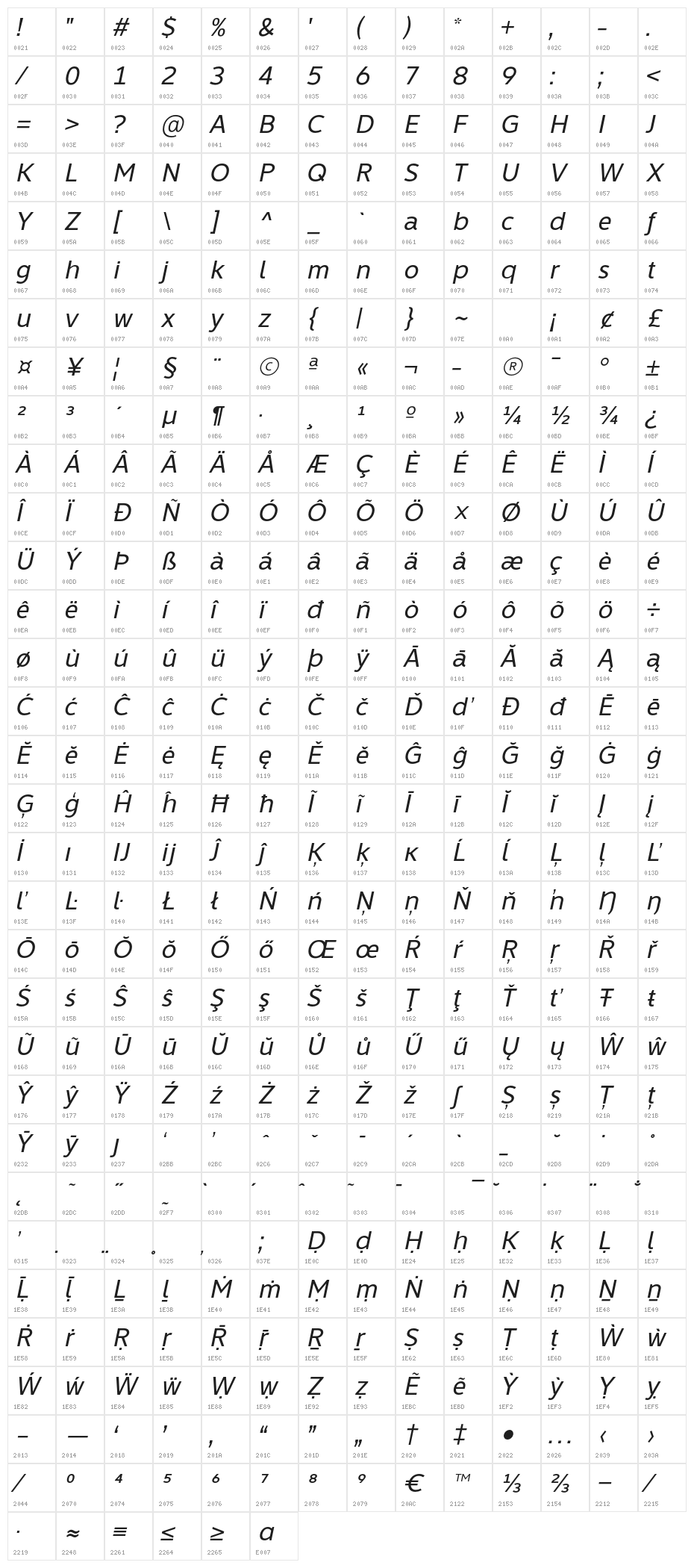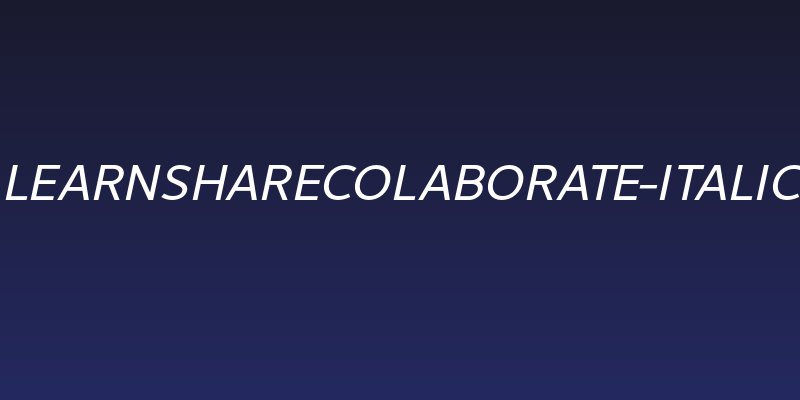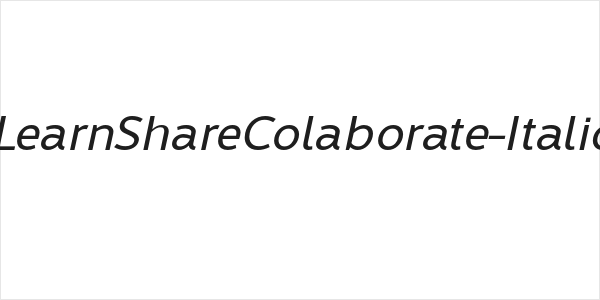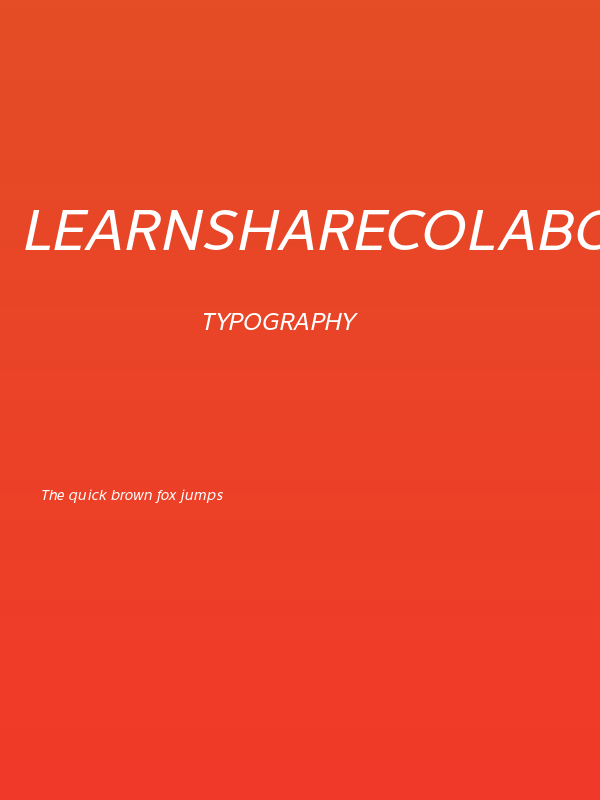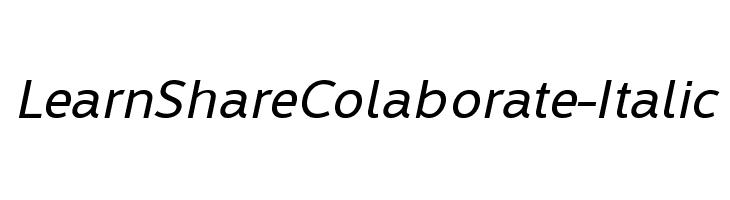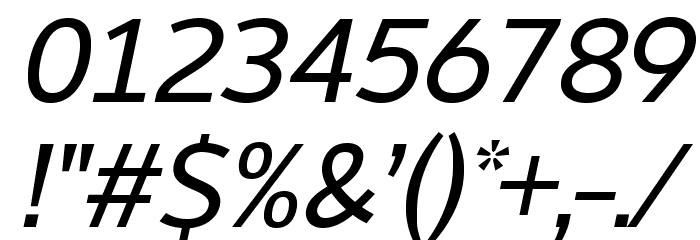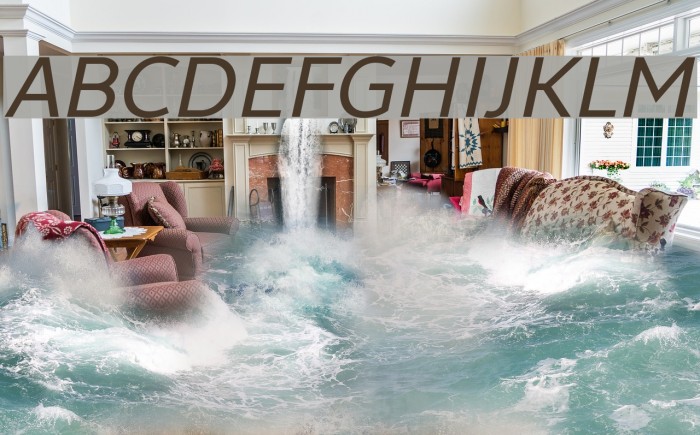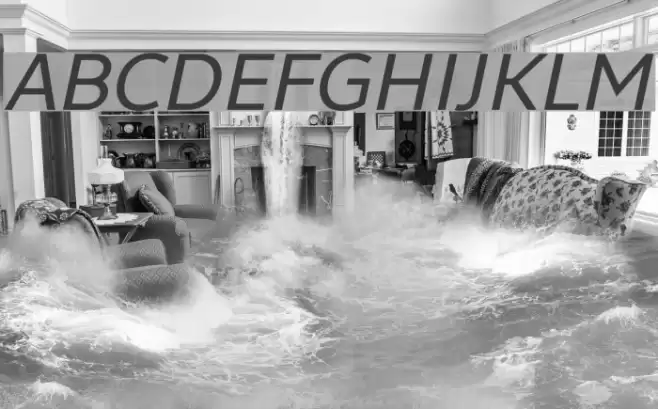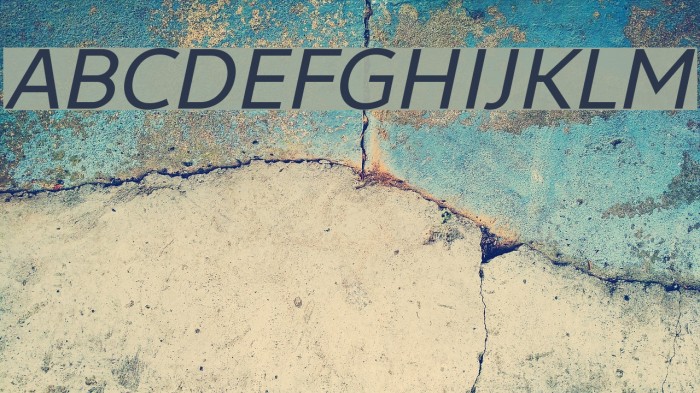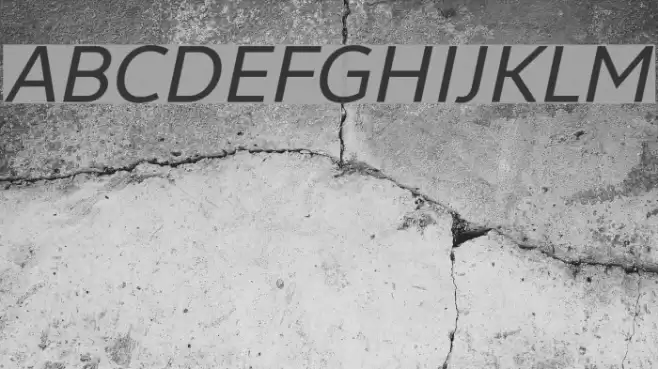
LearnShareColaborate-Italic Font
LearnShareColaborate-Italic Description
This font features a sleek and modern italic style, characterized by its smooth curves and clean lines. The letters are slightly slanted, giving it a dynamic and forward-moving appearance. The uppercase and lowercase letters are well-proportioned, maintaining readability while adding a touch of elegance. The numerals are clear and distinct, making them suitable for both text and numerical data. Special characters are included, enhancing its versatility for various applications. The overall design is minimalistic yet sophisticated, making it ideal for contemporary projects.
| Use Case | Headlines, Body text, Logos |
| Proposed Projects | Ideal for branding, advertising, modern web design, and editorial layouts. |